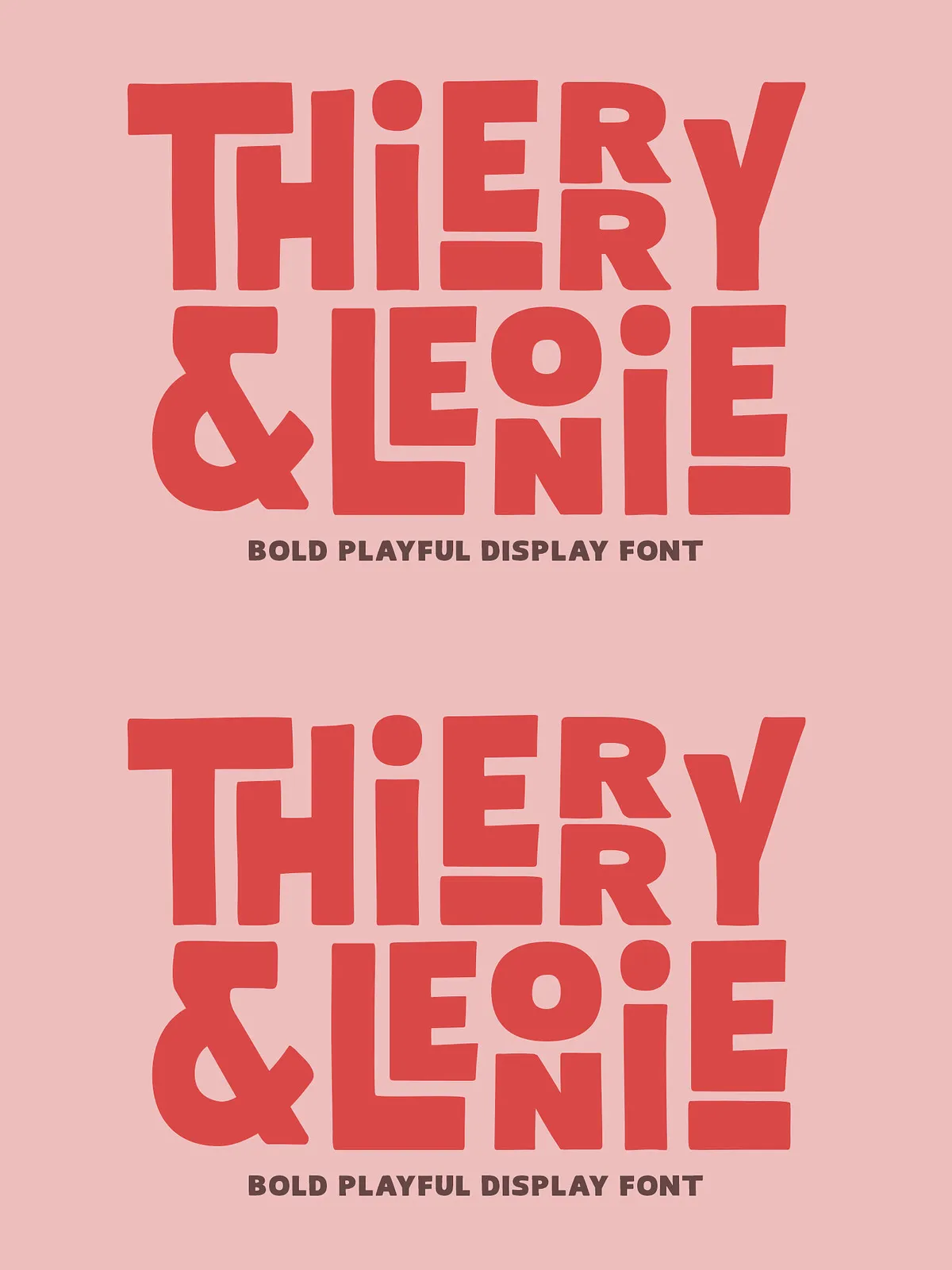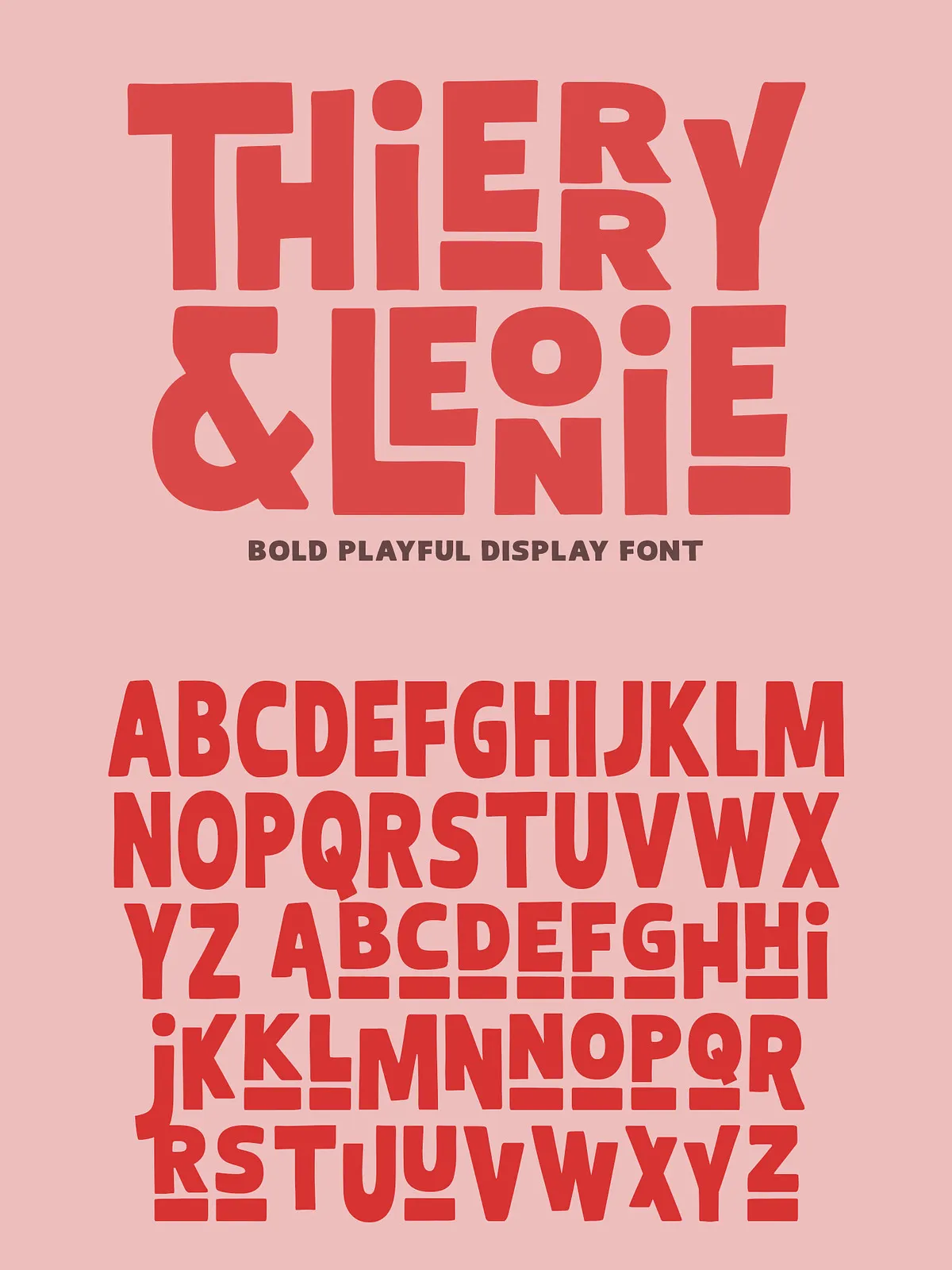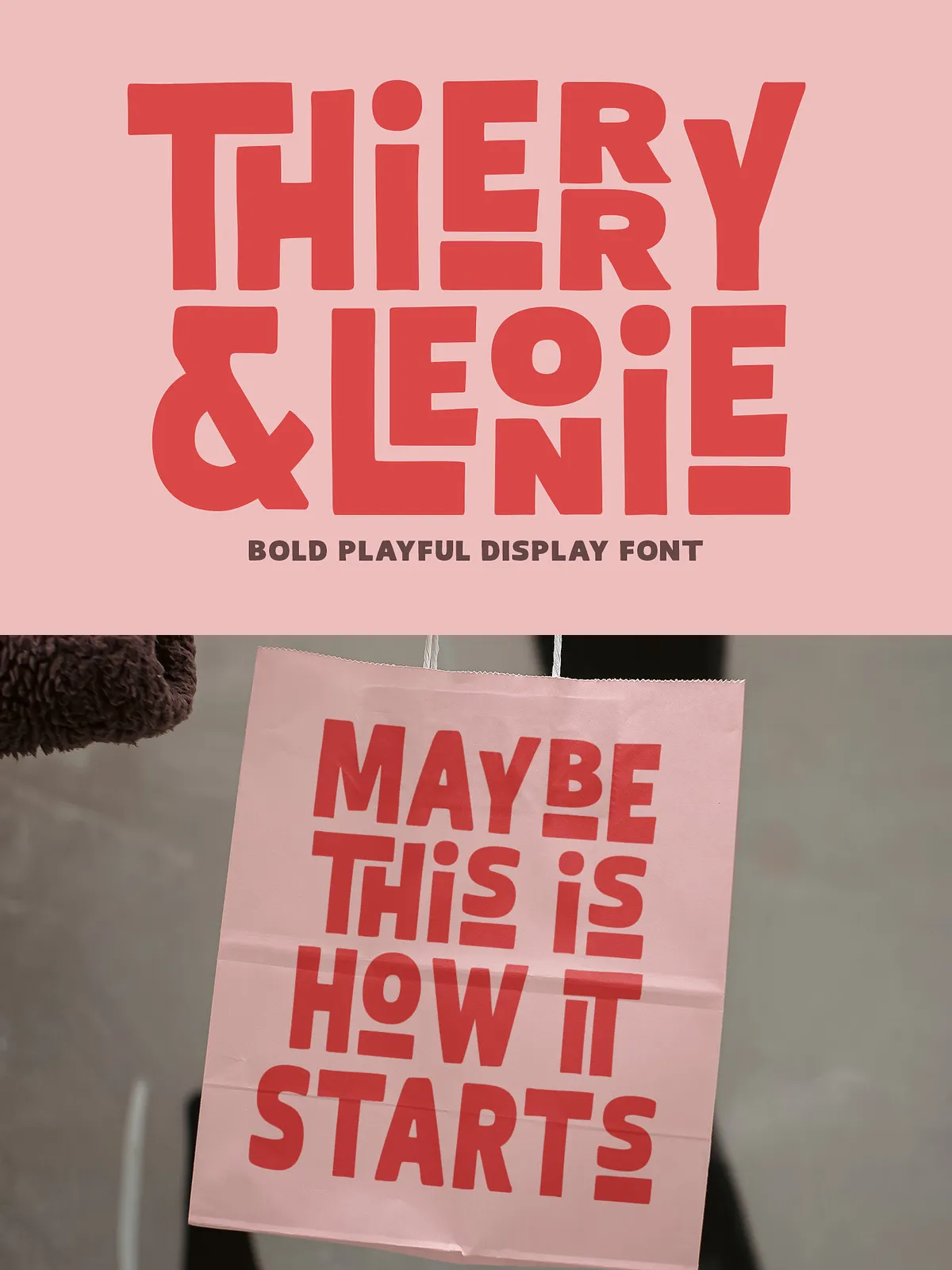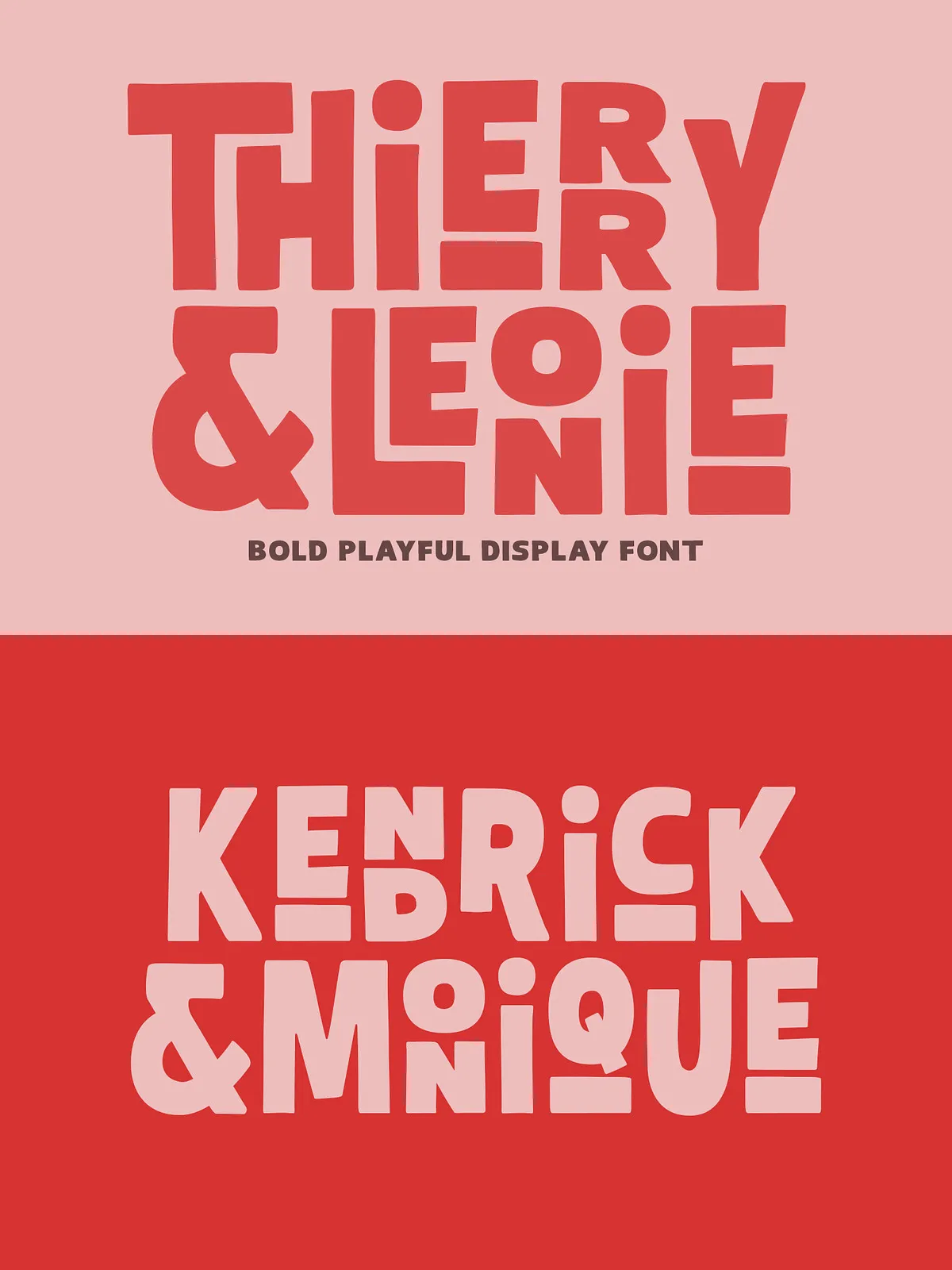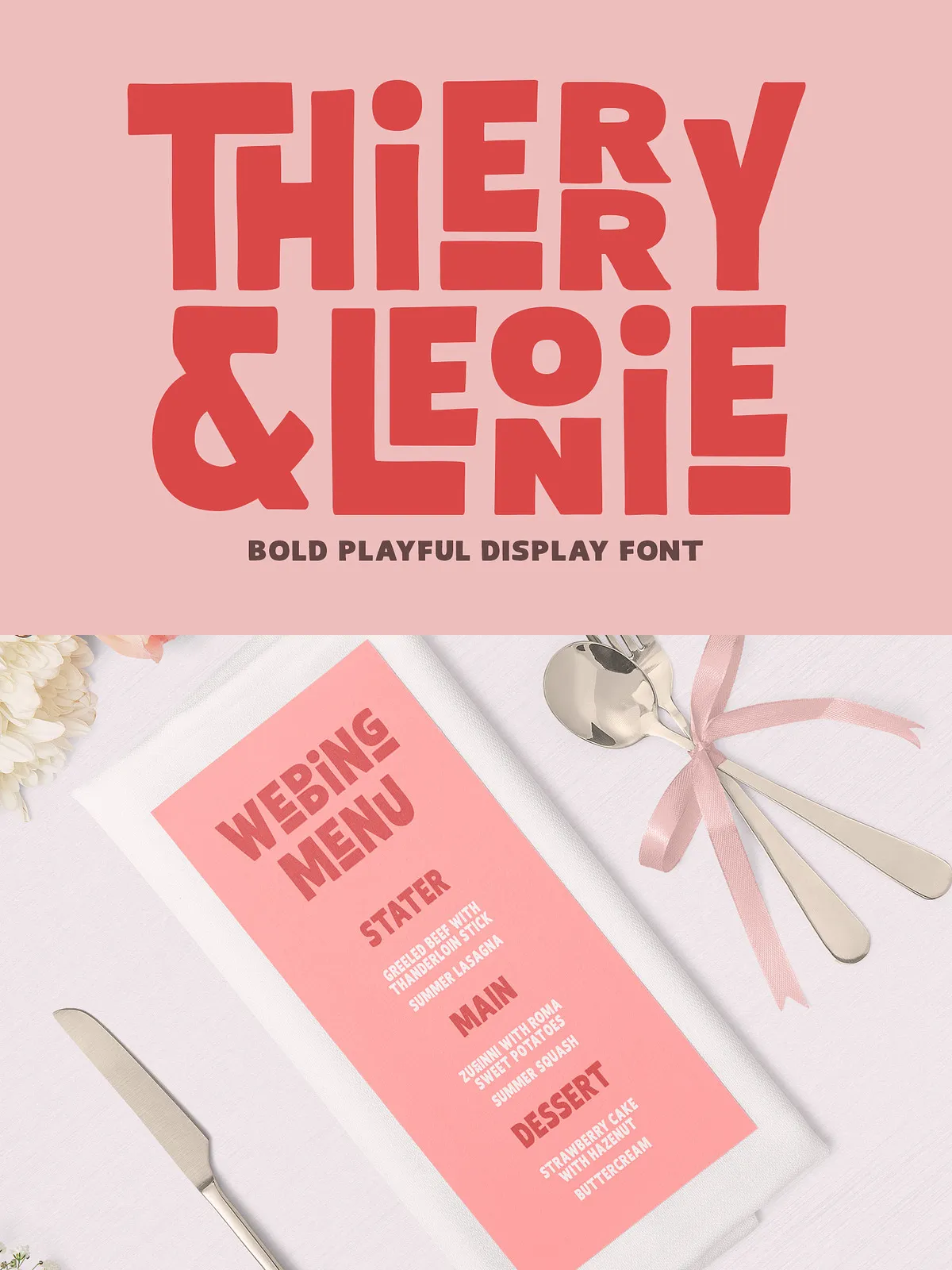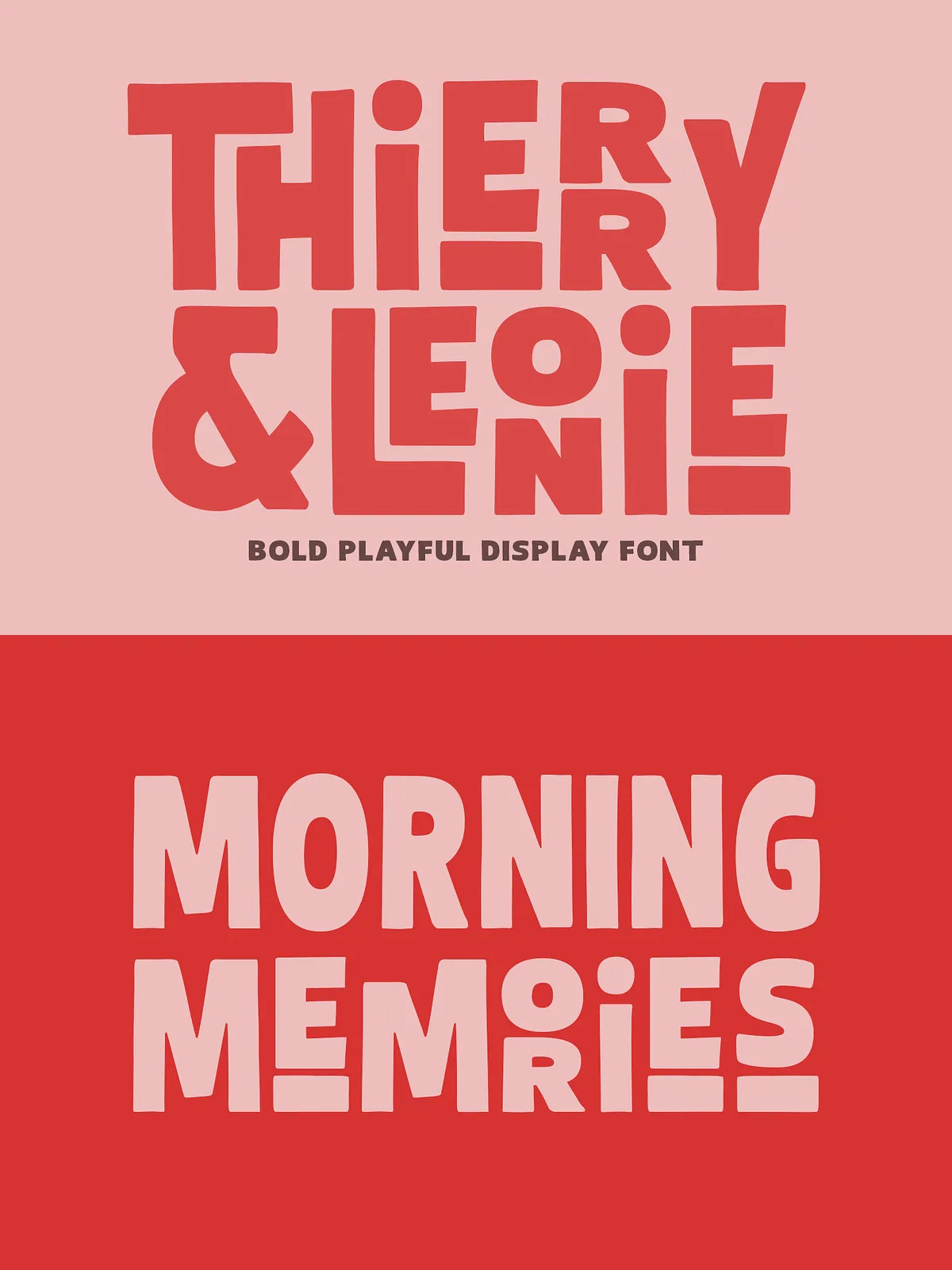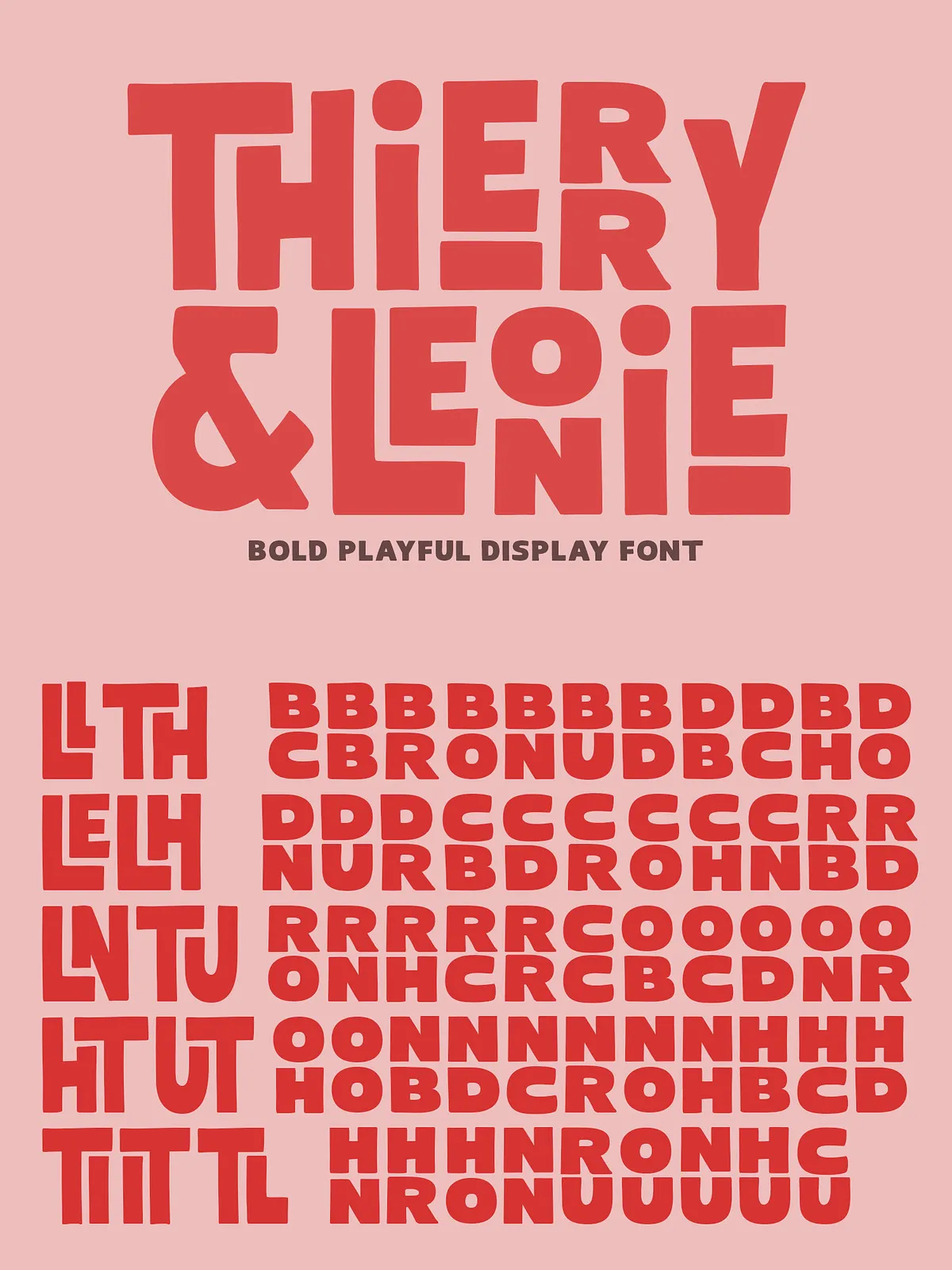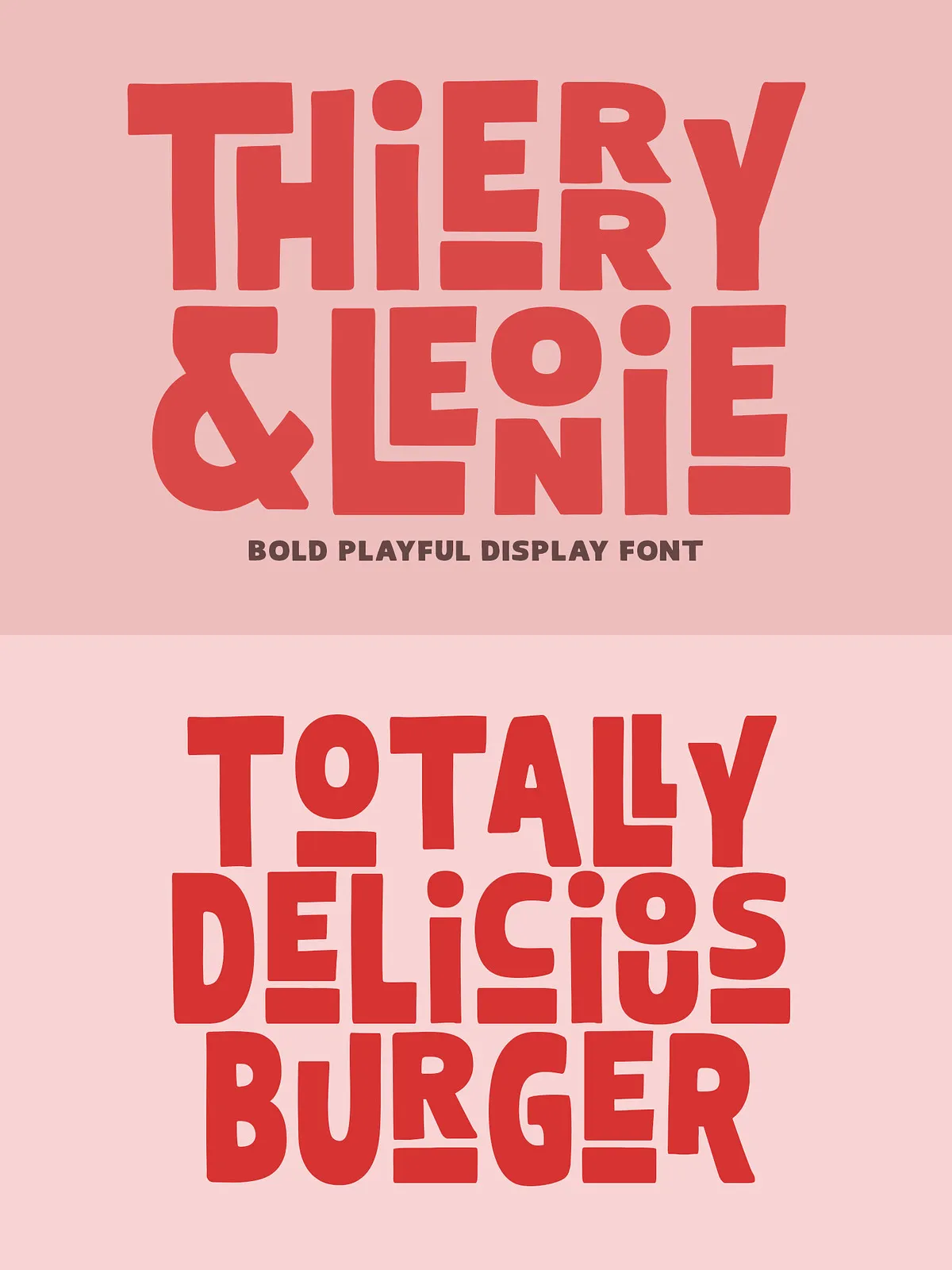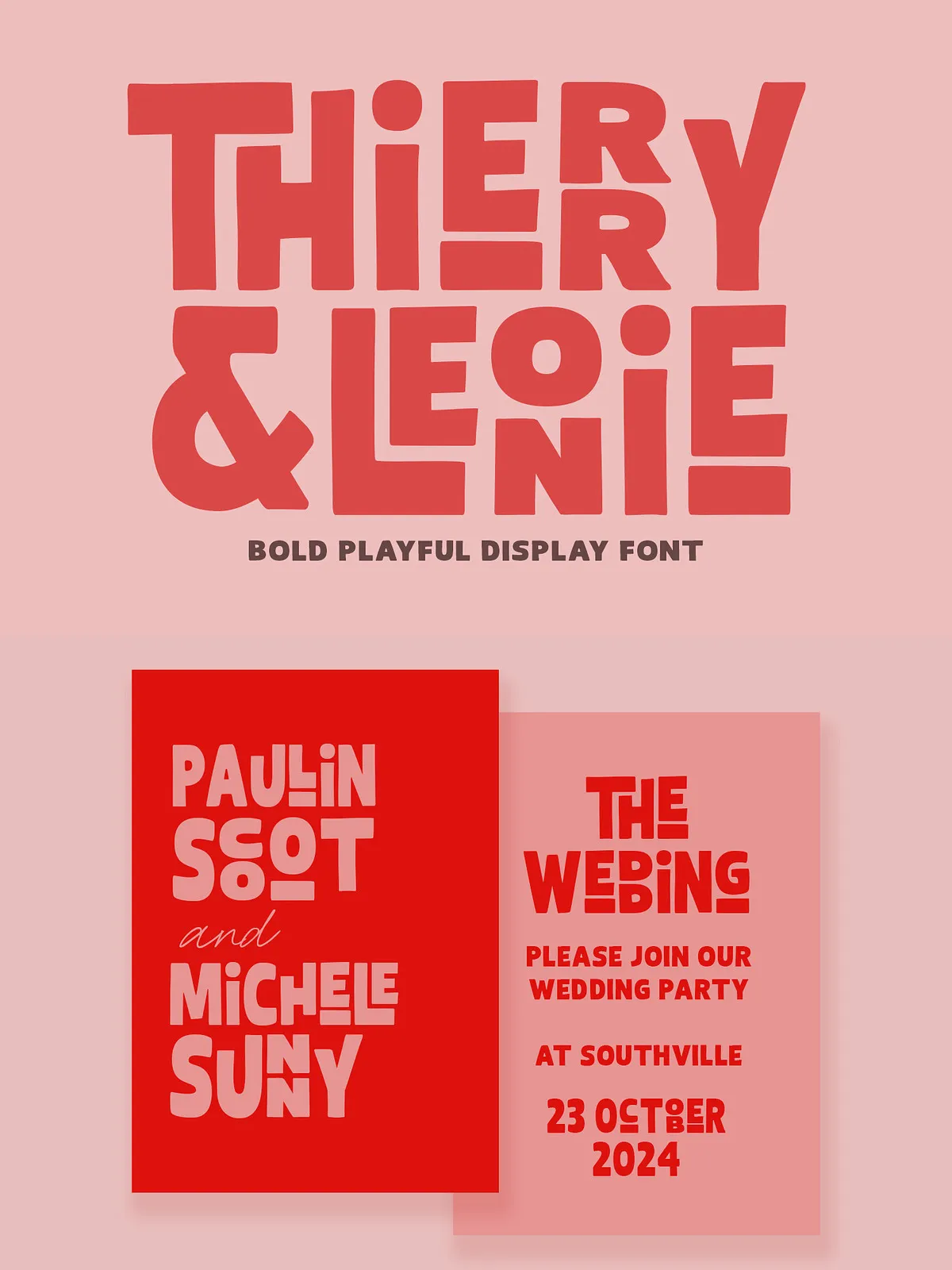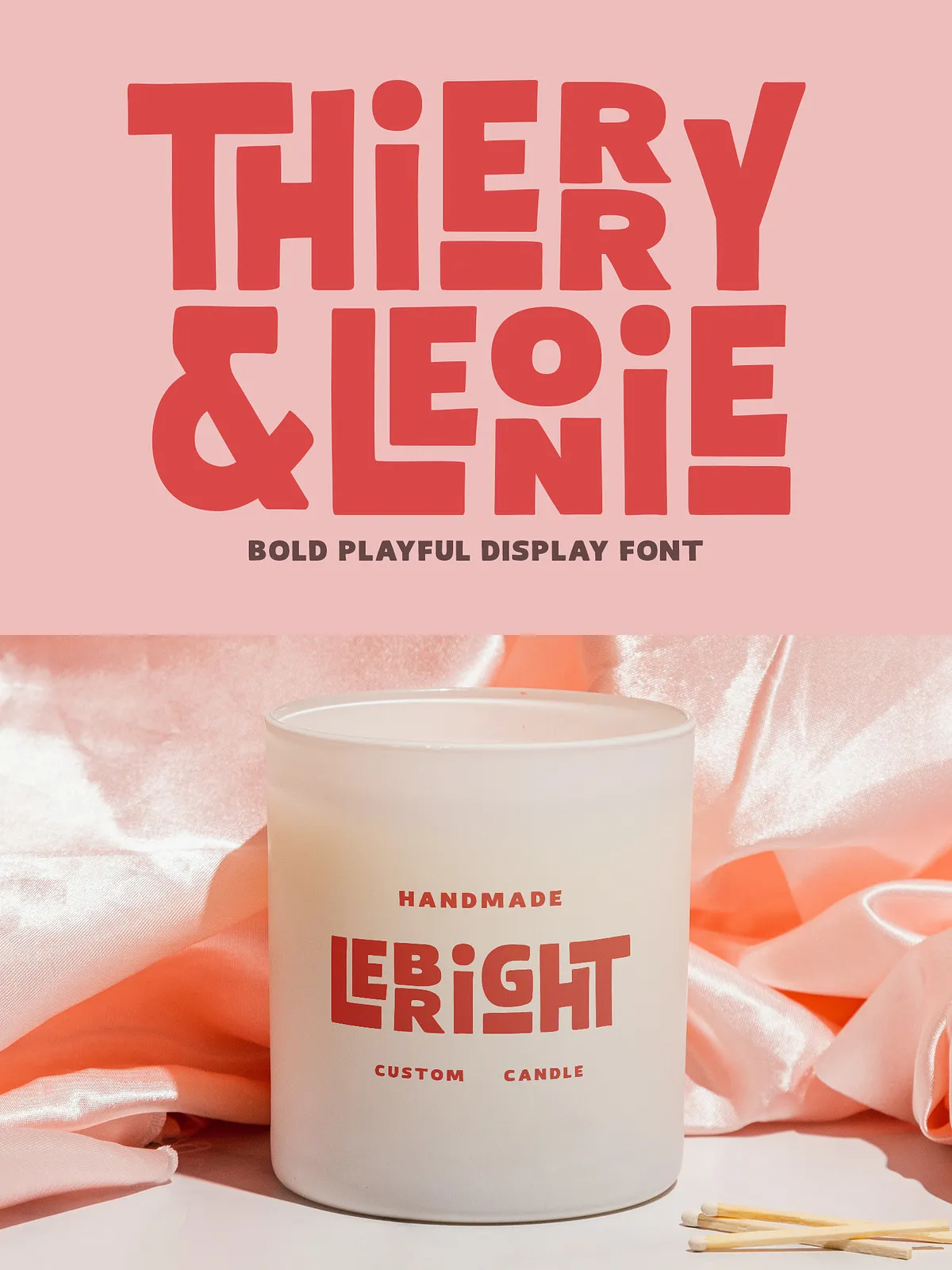
Thierry Leonie – Bold Playful Font
Introducing Thierry Leonie your new best friend in the world of fonts! This playful and cheerful display font combines boldness with a condensed style, making it perfect for adding a touch of personality to your designs. With its friendly sans-serif design and an abundance of ligatures, “Thierry Leonie” is like a warm hug for your creative projects. Whether you’re crafting inviting headlines, quirky logos, or delightful posters, this font will bring joy and charm to everything it touches. Embrace the friendliness and versatility of “Thierry Leonie” and let your creativity shine!